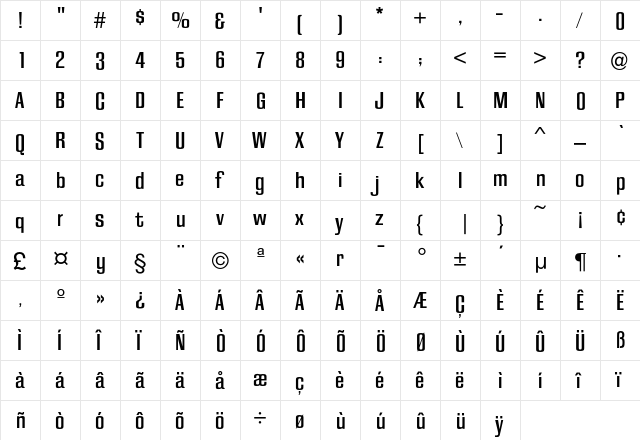
CaliforniaGrotesk Medium
Design Context for CaliforniaGrotesk Typeface
CaliforniaGrotesk has the quiet confidence of well-executed sans-serif typography: versatile, unobtrusive, and dependable at any size.
Font Pairing: Works well alongside a characterful serif or display font that can carry the expressive load while CaliforniaGrotesk handles the functional copy.
Pro Tip: Pair CaliforniaGrotesk with a display or serif font for headlines — its neutral character makes it an excellent supporting player in complex typographic systems.